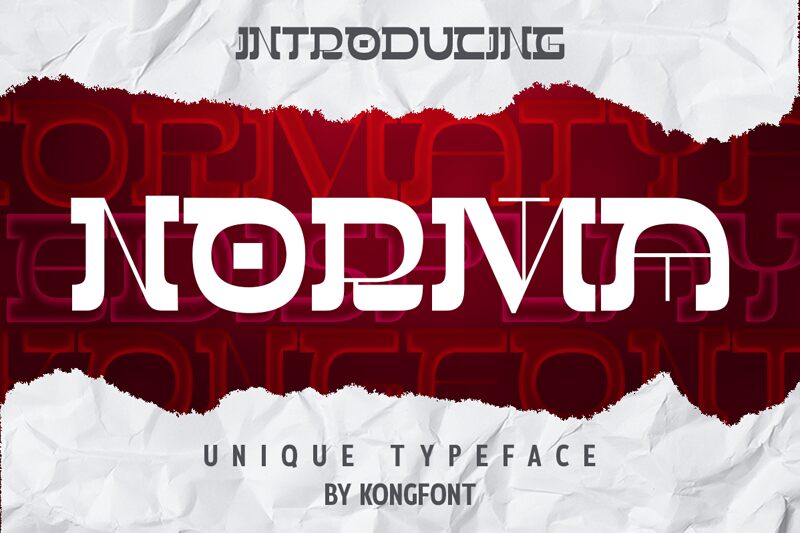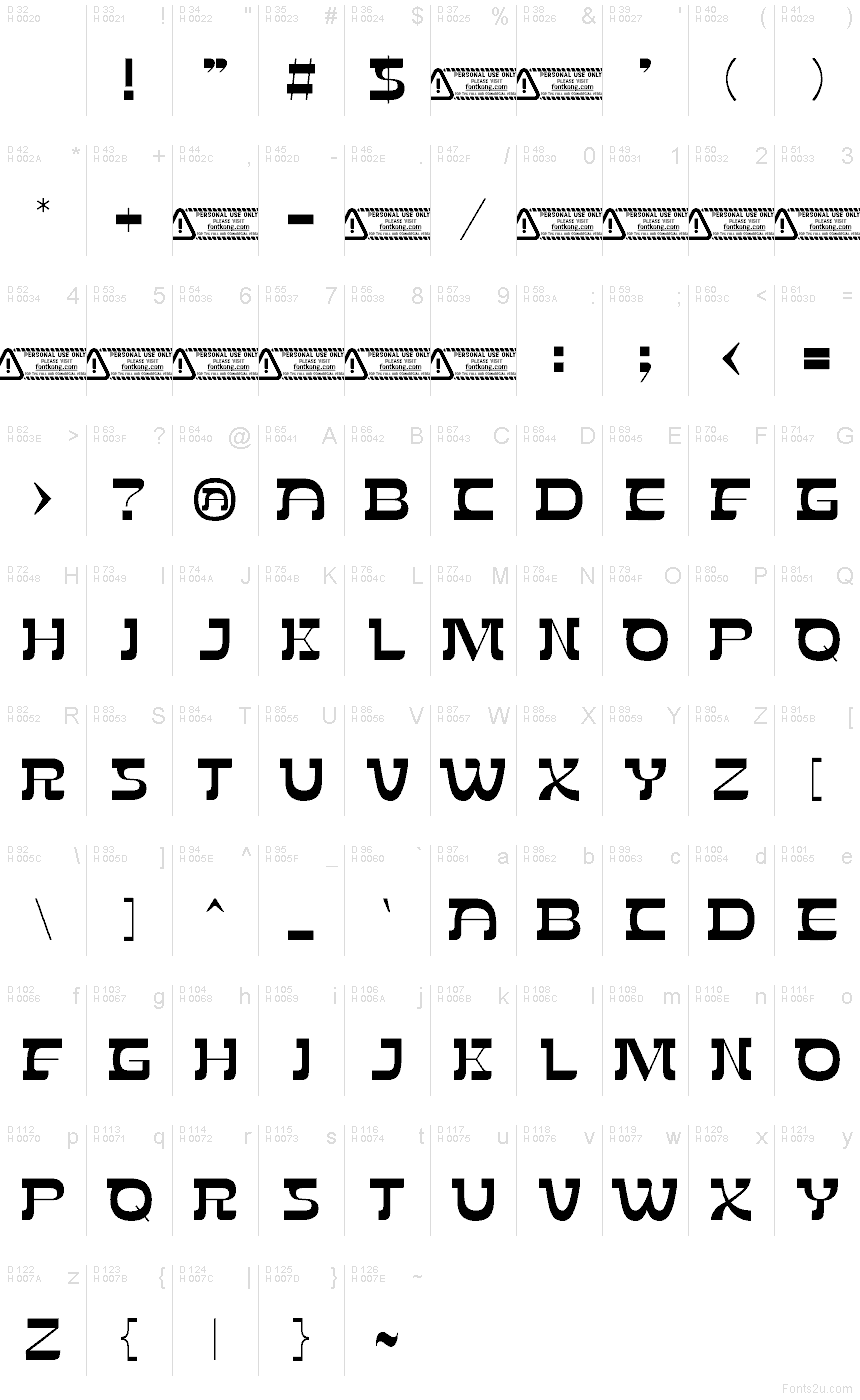
Norma font by Kong Font is a free decorative display typeface that turns every word into a bold graphic object. Thick, inky strokes collide with sharp internal cuts and unexpected gaps, creating a rhythm that feels both retro-futuristic and cleanly engineered. The letters lock together like pieces of a glossy black poster title, giving headlines a strong silhouette that’s easy to spot from a distance yet full of clever negative-space details up close.
Using Norma, you get a striking, sculptural look that works beautifully for logos, posters, album covers, editorial titles, packaging, event branding, and social media graphics. This free font shines at large sizes where its chunky curves and sliced forms can really breathe. Pair Norma with a simple, neutral sans serif for body copy to keep layouts balanced and legible while the display typeface does the heavy lifting for impact.